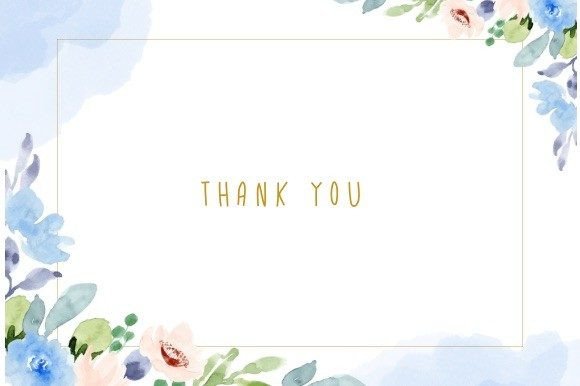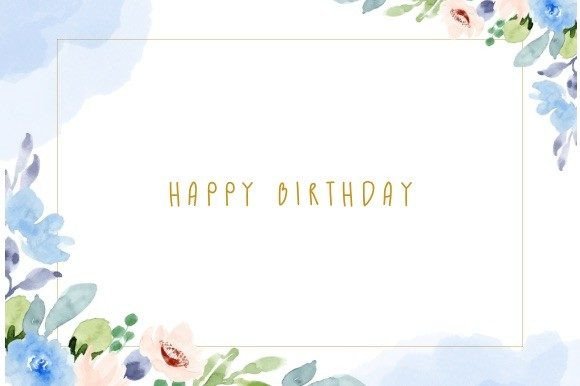
Introduction to Sn Jee Font
Have you ever found yourself scribbling down a heartfelt message on a card, only to wish it looked as beautiful as it felt? That’s exactly what happens when you discover the perfect font, like the stunning Sn Jee Font. This elegant handwritten font is not just a pretty face – it’s a versatile design resource that can elevate your creative projects from the mundane to the magical.
Whether you’re a seasoned designer or a DIY enthusiast, the Sn Jee Font is a high-quality addition to your toolkit. Its transparent background makes it easy to overlay on any image or design, giving you the freedom to experiment with different layouts and styles. With its free download option, you can access this beautiful font without breaking the bank, making it an invaluable resource for anyone looking to add a personal touch to their work.
- High-quality, unique font design ideal for creative projects
- Unique characteristics: intricate details, elegant curves, and a sophisticated aesthetic
- Excellent choice as a design resource for branding, typography, and creative projects
Honest Review: Sn Jee Font
I recently had the chance to work with the Sn Jee Font, and I must say it’s been an interesting experience. As a designer, I’m always on the lookout for high-quality design resources that can help me bring my creative projects to life.
One of the things that stands out about the Sn Jee Font is its unique aesthetic. The font’s sleek and modern design makes it perfect for a variety of creative projects, from graphic design to web development.
- ✨ High-quality design: The Sn Jee Font is well-crafted and visually appealing.
- ⚠️ Limited font styles: While the font is well-designed, it’s limited to a few styles, which may not be suitable for every project.
- ⚠️ Limited language support: The font may not support all languages, which could be a limitation for designers working on international projects.
Overall, I’d say the Sn Jee Font is a solid addition to any designer’s toolkit. While it may have some limitations, its unique aesthetic and high-quality design make it a great choice for creative projects. With a bit of creative problem-solving, you can work around its limitations and achieve great results.
For high-quality results, use Sn Jee Font with a transparent background to create a unique design element. You can also experiment with different font sizes and styles to add creativity to your project.
Sn Jee Font is a versatile design resource that can be used in various creative projects, such as logos, posters, and social media graphics. It’s also a great option for free download, making it an ideal choice for designers on a budget.